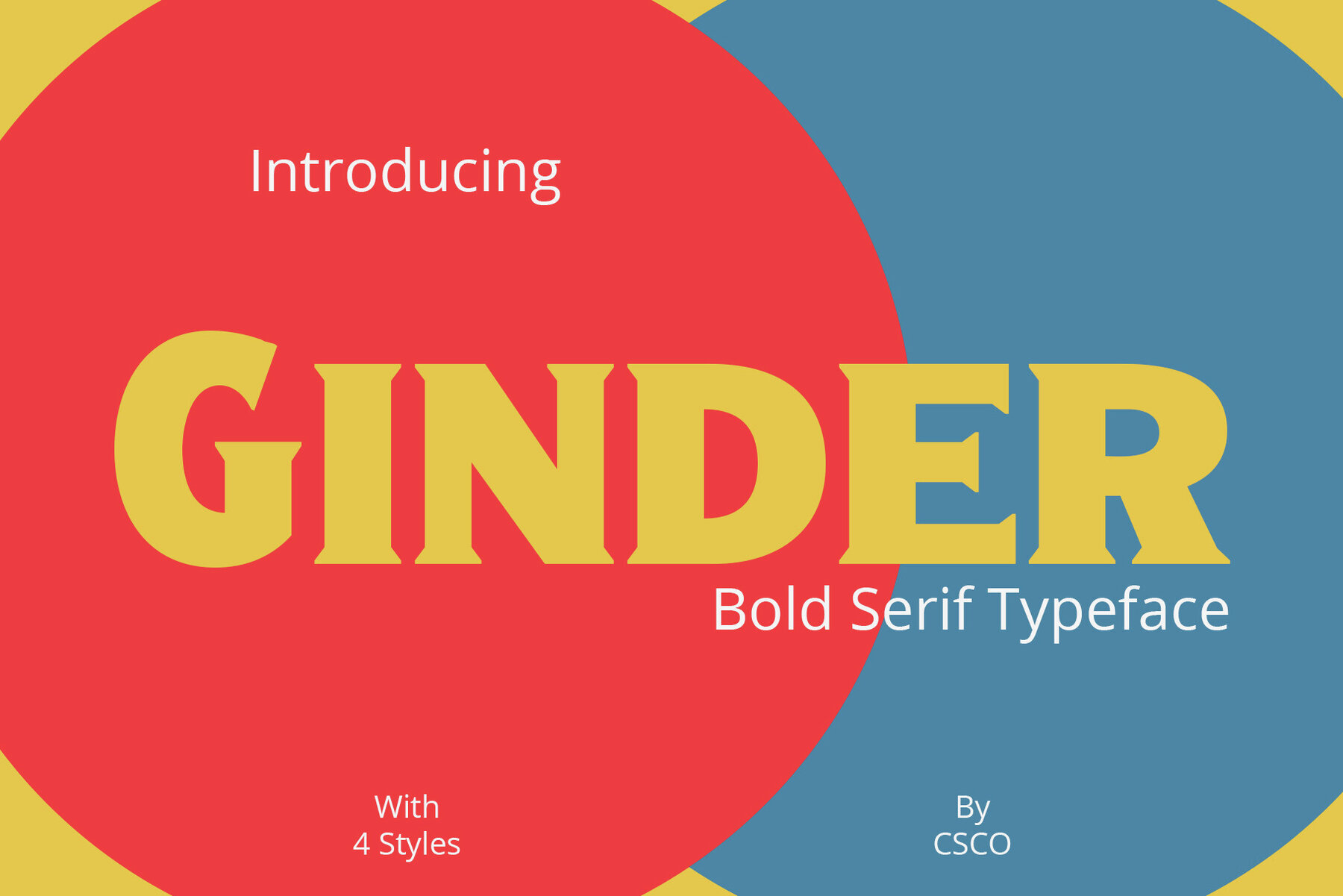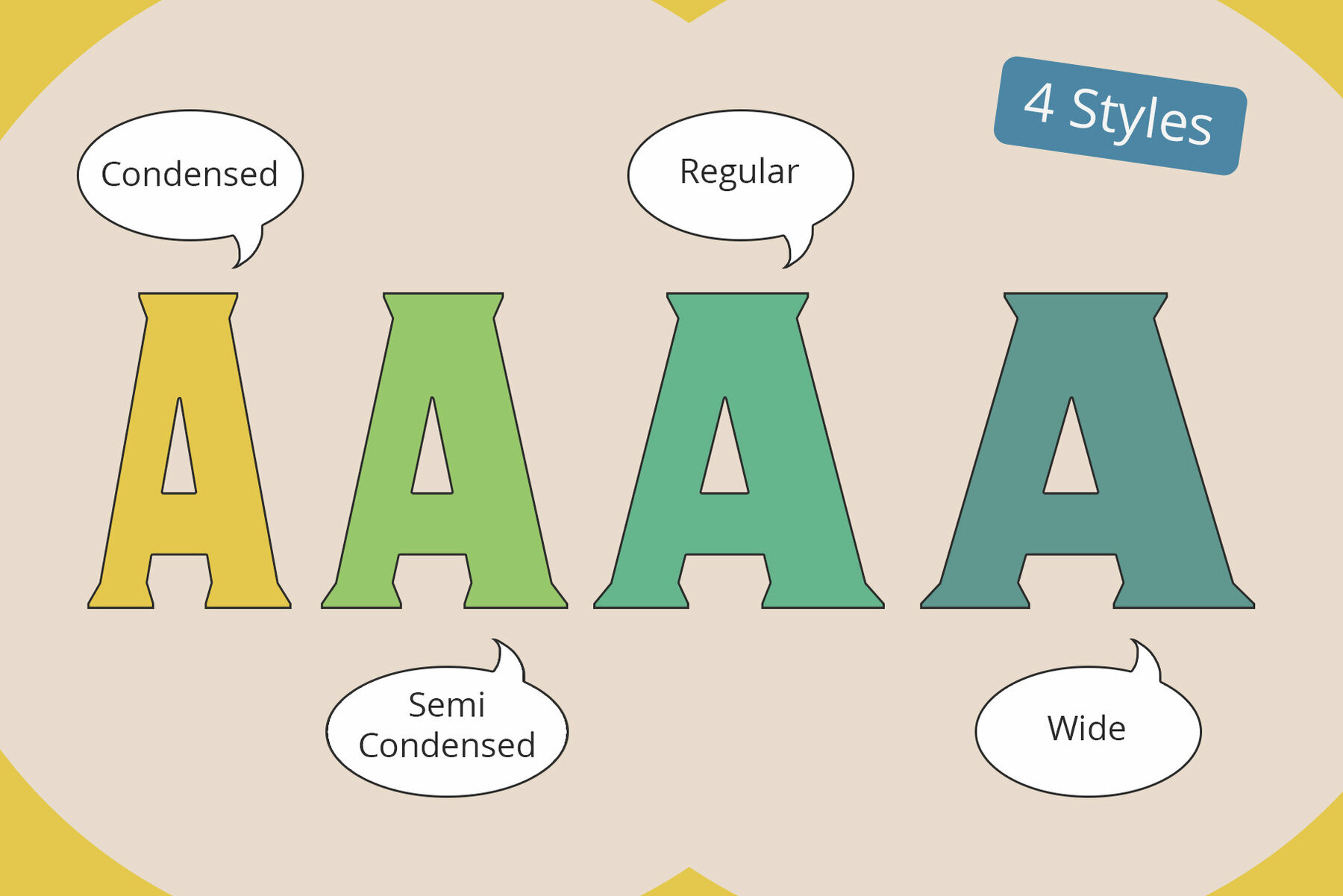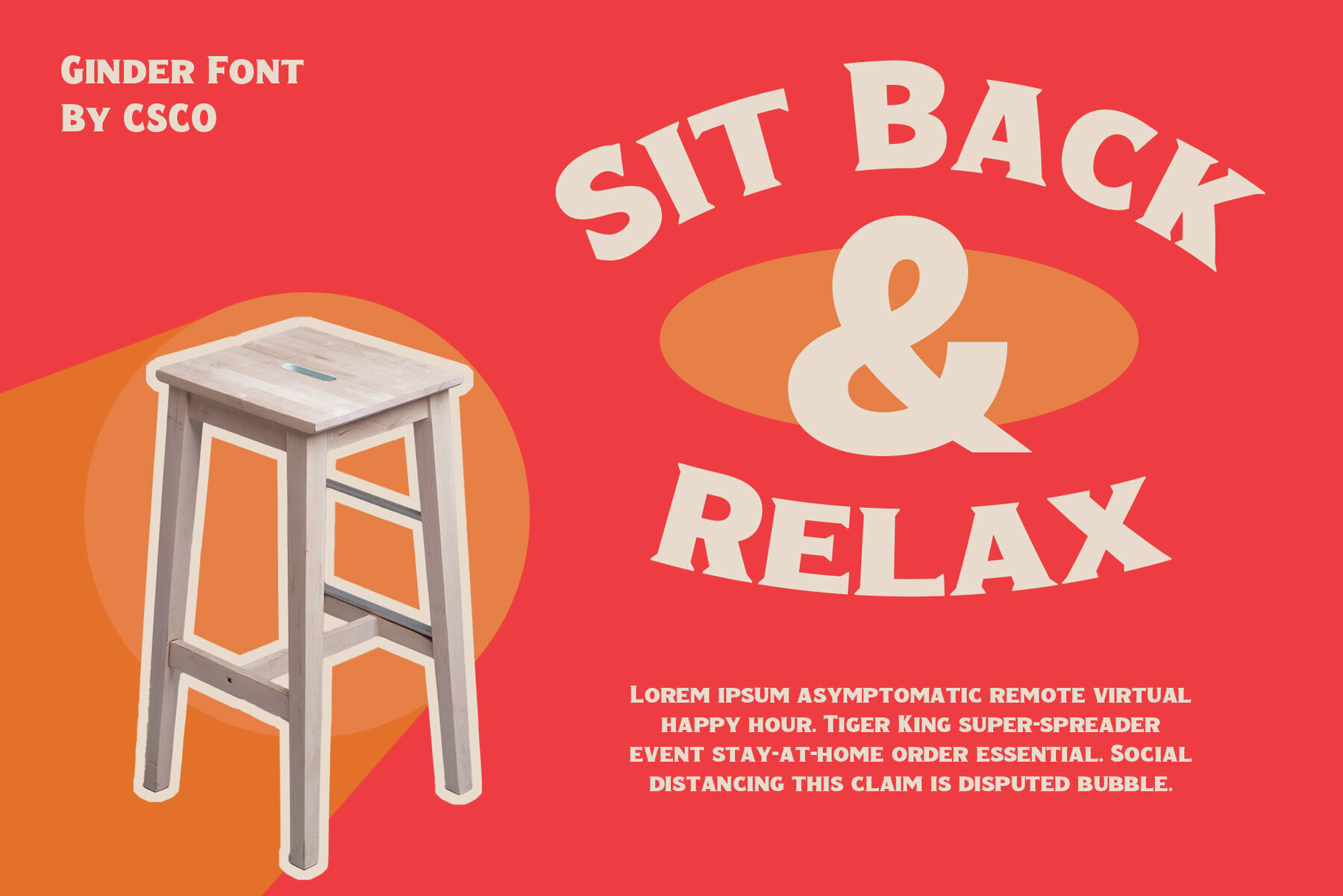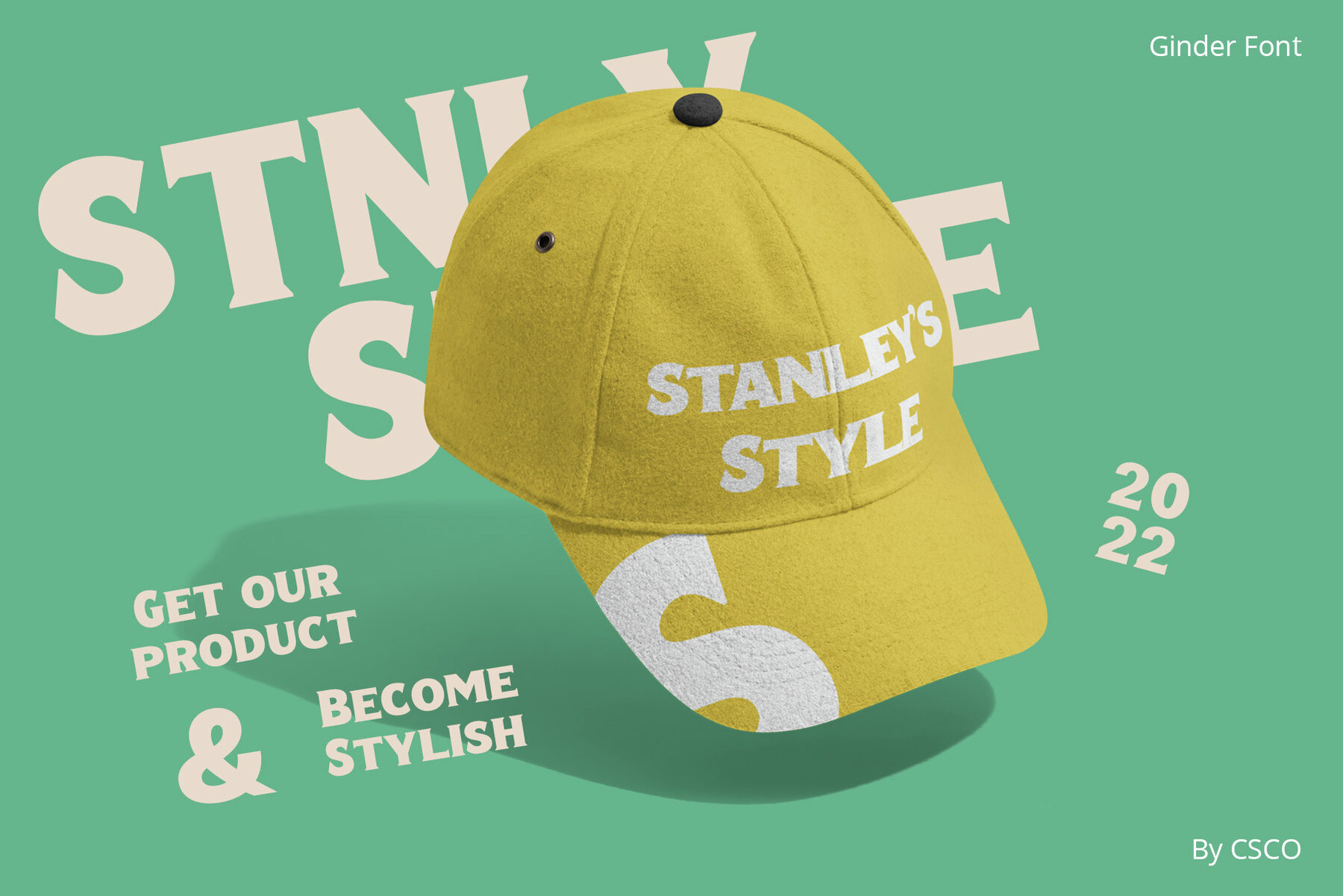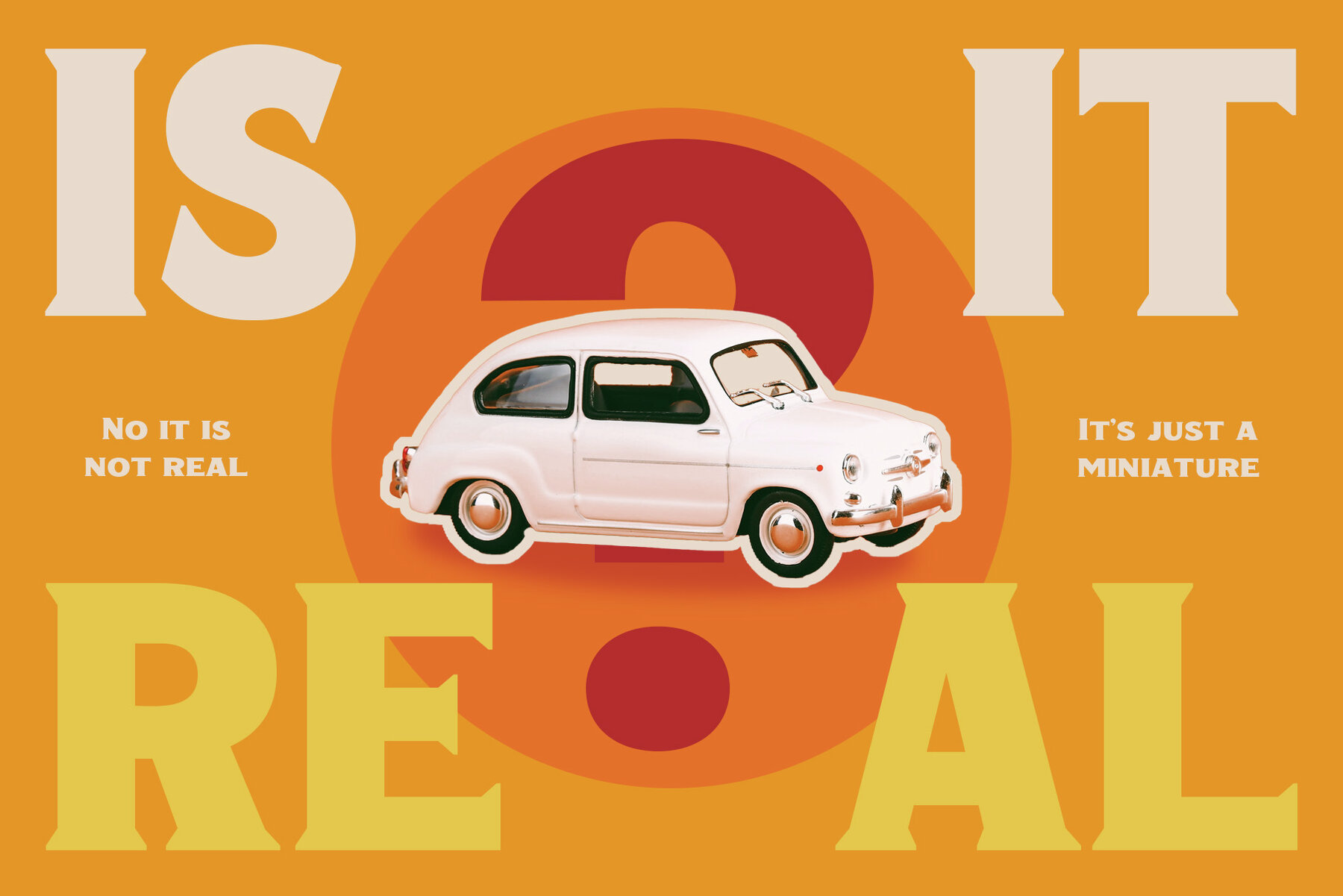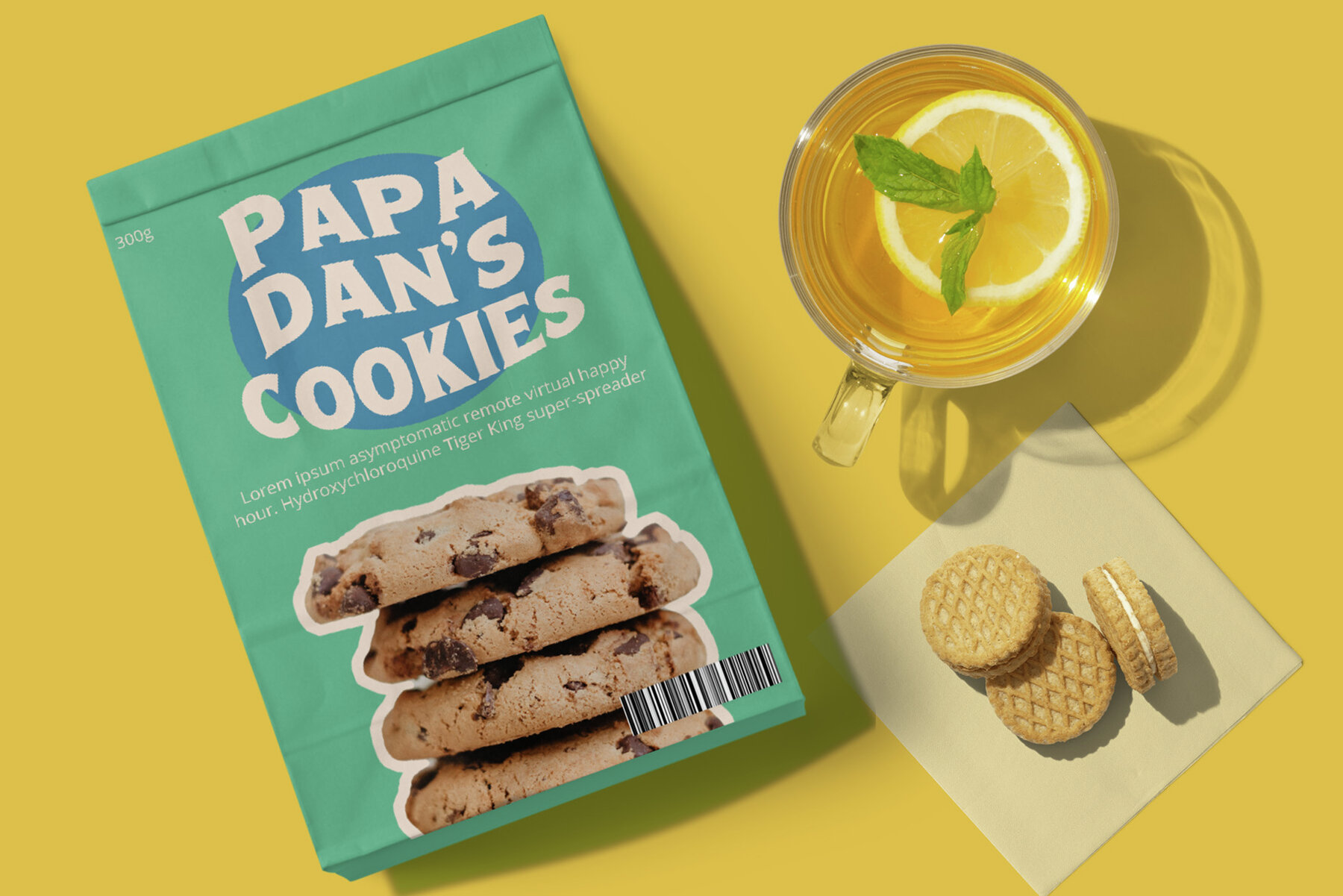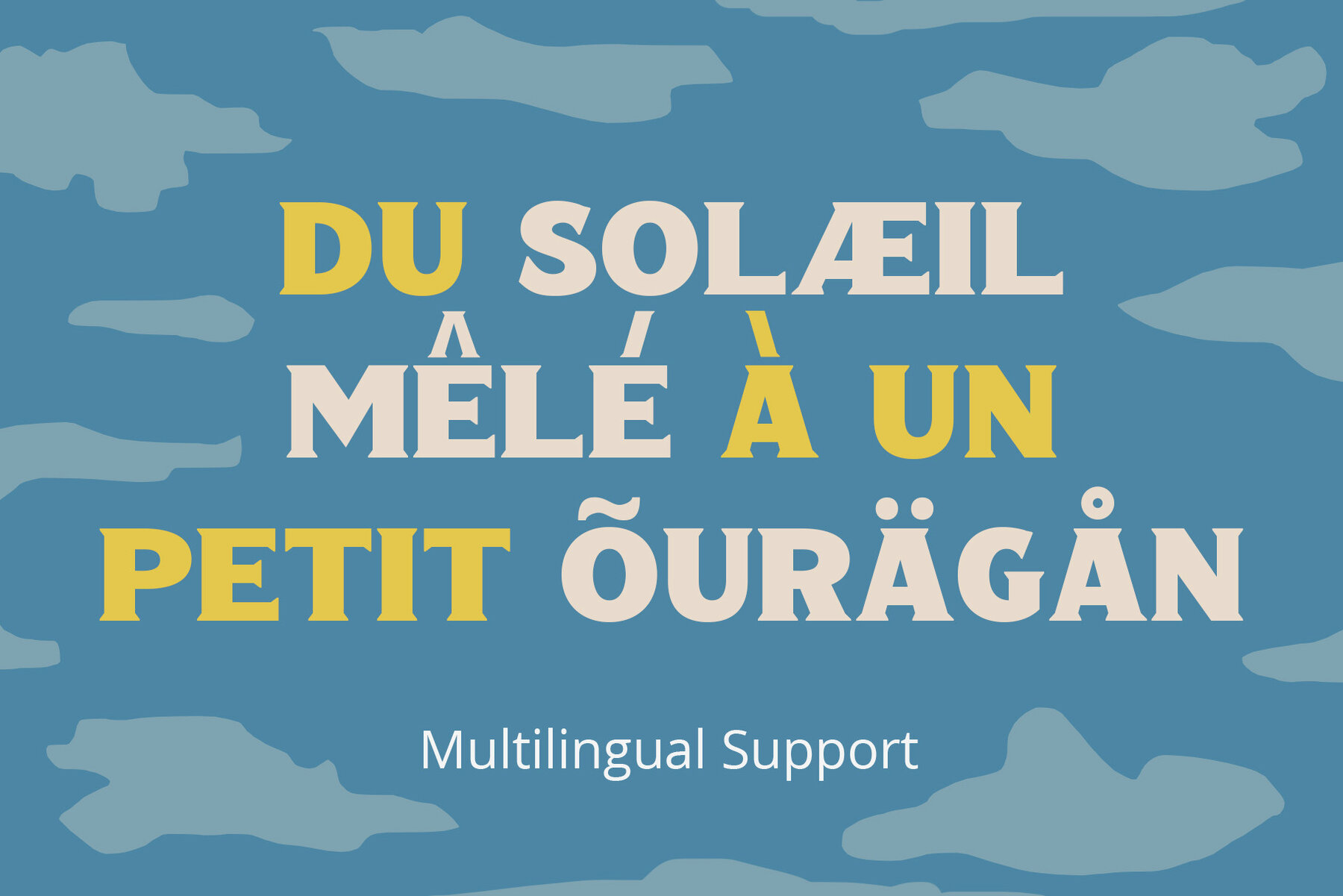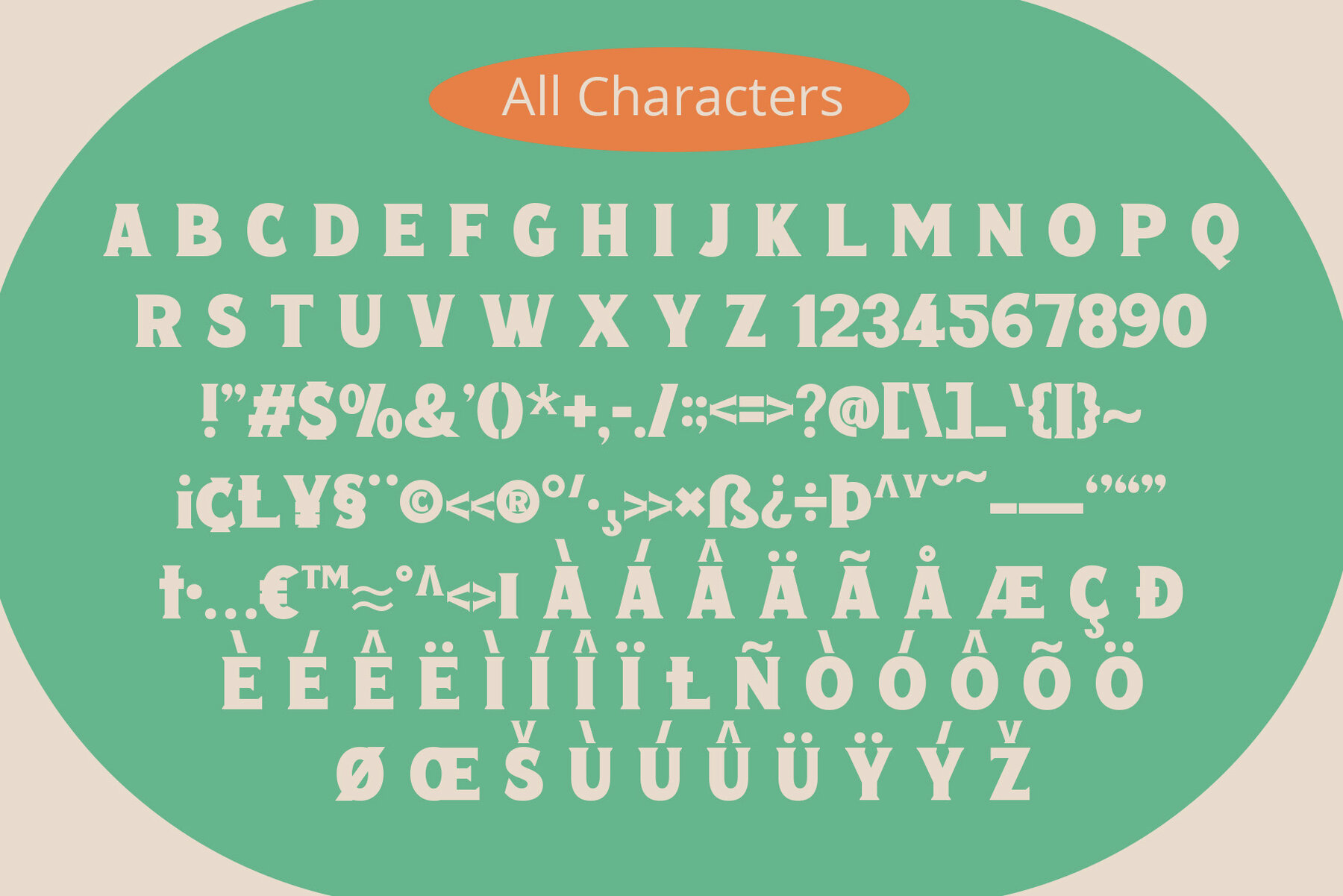
Ginder Font
Ginder is a bold serif font known for its commanding presence and versatility. Ideal for projects that require a striking impact, this font effortlessly captures attention, making it a preferred choice for titles and posters. Ginder stands out with its strong, bold character, perfect for creating titles and posters that make a powerful impact. Its design ensures your message is noticed and remembered. With its robust design, Ginder excels in creating striking titles and posters, enhancing both visibility and readability. This font is a top choice for impactful visual designs. Despite its boldness, Ginder is surprisingly adaptable, working well in both digital and print formats. This versatility makes it a valuable tool for various design projects.Ginder: Bold Serif Font for Impactful Designs
Bold and Commanding Presence
Ideal for Titles and Posters
Adaptable Across Mediums